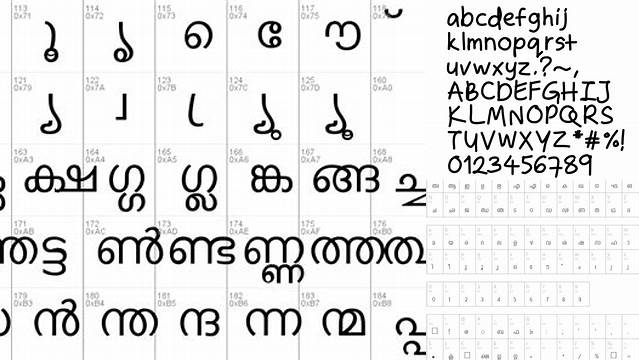
Download ML TT Fonts: Free TTF For Your Projects
Finding the right font can be a game-changer for your projects, whether you're designing a website, creating marketing materials, or simply want to add a unique touch to your documents. One popular choice is the ML TT font, known for its distinctive style and readability. In this comprehensive guide, we'll explore everything you need to know about ML TT fonts, including where to find them, how to download them for free in TTF format, and how to use them effectively in your various projects. Let's dive in, guys!
1. Understanding ML TT Fonts: What Makes Them Special?
So, what exactly are ML TT fonts, and why are they so popular? Well, first off, "ML" often refers to multilingual support, meaning these fonts are designed to display a wide range of characters and languages. This is super important if you're working on projects that need to reach a global audience. The "TT" stands for TrueType, a font standard developed by Apple and Microsoft back in the day. TrueType fonts are scalable, meaning they look great at any size, and they're widely supported across different operating systems and applications. ML TT fonts stand out because they often include unique design elements, making them visually appealing and suitable for various creative purposes. They strike a balance between functionality and aesthetics, which is why so many designers and content creators love them. Using an ML TT font can really elevate the look and feel of your projects, giving them a polished and professional touch. Plus, the fact that they're often available for free download makes them an accessible option for everyone, regardless of their budget. When choosing a font, consider the overall tone and message of your project. An ML TT font can add a touch of elegance or modernity, depending on the specific style you choose. So, go ahead and explore the different options available and see how these fonts can transform your work. In summary, ML TT fonts are versatile, visually appealing, and widely accessible, making them a fantastic choice for a wide range of projects. Their multilingual support and scalability ensure they'll look great no matter where or how they're used.
5. Best Practices for Using ML TT Fonts in Design Projects
Using ML TT fonts effectively in your design projects requires a bit of finesse. It's not just about picking a font you like; it's about choosing a font that complements your overall design and enhances your message. One key best practice is to consider the font's readability. While a font might look visually appealing, it's important to ensure that it's easy to read, especially for body text. Choose a font size that's appropriate for the context and adjust the line height and letter spacing to improve readability. Another important factor is contrast. Make sure there's sufficient contrast between the font color and the background color to ensure that the text stands out. Avoid using colors that are too similar, as this can make the text difficult to read. When using ML TT fonts in headings, consider using a larger font size and a bolder weight to create visual hierarchy. This will help guide the reader's eye and make your content more engaging. Don't be afraid to experiment with different font combinations, but be mindful of creating a cohesive look. A good rule of thumb is to limit yourself to two or three fonts per project to avoid overwhelming the viewer. Also, pay attention to the font's personality. Different fonts convey different emotions and messages. Choose a font that aligns with the overall tone and style of your project. For example, a serif font might be suitable for a formal document, while a sans-serif font might be better suited for a modern website. Finally, always test your design on different devices and browsers to ensure that the ML TT font renders correctly. Different platforms can sometimes display fonts differently, so it's important to catch any issues early on. By following these best practices, you can leverage the power of ML TT fonts to create stunning and effective designs.
6. Exploring Different Styles and Variations of ML TT Fonts
The world of ML TT fonts is vast and diverse, offering a wide range of styles and variations to suit any project. From elegant serifs to modern sans-serifs, there's an ML TT font for every taste and purpose. One popular style is the classic serif font, characterized by its small decorative strokes at the end of each letter. Serif fonts are often used in formal documents, books, and traditional designs. They convey a sense of authority and sophistication. Sans-serif fonts, on the other hand, lack these decorative strokes, giving them a cleaner and more modern look. Sans-serif fonts are commonly used in websites, logos, and contemporary designs. They're often perceived as being more approachable and user-friendly. Within each style, there are countless variations, including different weights (e.g., light, regular, bold), widths (e.g., condensed, normal, expanded), and styles (e.g., italic, oblique). These variations allow you to fine-tune the font to perfectly match your design needs. Some ML TT fonts also include special features like ligatures (combinations of two or more letters into a single glyph) and alternate characters, which can add a unique and artistic touch to your designs. When exploring different styles and variations, consider the overall tone and message of your project. A bold, condensed font might be suitable for a headline, while a light, regular font might be better suited for body text. Experiment with different combinations to see what works best for your design. And don't be afraid to step outside your comfort zone and try something new. You might discover a hidden gem that elevates your design to the next level.
7. The Importance of Font Licensing: Staying Legal
Font licensing is a crucial aspect of using ML TT fonts, and it's essential to understand the terms and conditions associated with each font. Using a font without the proper license can lead to legal issues, so it's always better to err on the side of caution. Most fonts are protected by copyright law, which grants the font designer or foundry exclusive rights to control how the font is used. This means that you can't simply download a font and use it for any purpose you want. You need to obtain a license that grants you the right to use the font in a specific way. Font licenses typically specify the permitted uses of the font, such as personal use, commercial use, web embedding, and app embedding. Some licenses are free, while others require a one-time payment or a recurring subscription fee. Free licenses often come with restrictions on commercial use, so it's important to read the fine print carefully. Commercial licenses typically allow you to use the font in a wider range of projects, including logos, marketing materials, and products for sale. Web embedding licenses allow you to use the font on your website, while app embedding licenses allow you to use the font in your mobile app. When downloading ML TT fonts, always check the license agreement before using the font. If you're unsure about the licensing terms, contact the font designer or the website where you downloaded the font. It's also a good idea to keep a record of your font licenses in case you ever need to prove that you have the right to use a particular font. By understanding the importance of font licensing and staying legal, you can avoid potential legal issues and ensure that you're respecting the rights of the font designers.
8. Using ML TT Fonts for Branding: Creating a Unique Identity
9. ML TT Fonts and Web Design: Enhancing User Experience
10. ML TT Fonts in Print Media: Achieving Visual Harmony
11. Combining ML TT Fonts with Other Fonts: A Harmonious Approach
12. Mastering Typography with ML TT Fonts: Tips and Tricks
13. Creating Eye-Catching Headlines with ML TT Fonts
14. Designing Readable Body Text with ML TT Fonts
15. Using ML TT Fonts for Logos: Making a Lasting Impression
16. ML TT Fonts for Social Media Graphics: Engaging Your Audience
17. Choosing the Right ML TT Font for Your Project: A Decision Guide
18. Exploring Font Pairing with ML TT Fonts: A Designer's Perspective
19. The Psychology of Fonts: How ML TT Fonts Influence Perception
20. The Future of ML TT Fonts: Trends and Innovations
21. Optimizing ML TT Fonts for Different Screen Resolutions
22. ML TT Fonts and Accessibility: Designing for Everyone
23. Using CSS to Style ML TT Fonts on Websites
24. Embedding ML TT Fonts in PDFs: Ensuring Consistent Display
25. Converting ML TT Fonts to Web Fonts: A Practical Guide
26. Managing Your Font Library: Organizing ML TT Fonts Effectively
27. The Evolution of Font Design: A Historical Overview of ML TT Fonts
28. ML TT Fonts in Different Languages: Supporting Global Communication
29. Font Foundries and Designers: Discovering the Creators of ML TT Fonts
30. Resources for Learning More About ML TT Fonts: Expanding Your Knowledge
By exploring these various aspects of ML TT fonts, you'll be well-equipped to make informed decisions and create stunning designs that capture attention and convey your message effectively. So go ahead, experiment, and unleash the power of ML TT fonts in your next project!